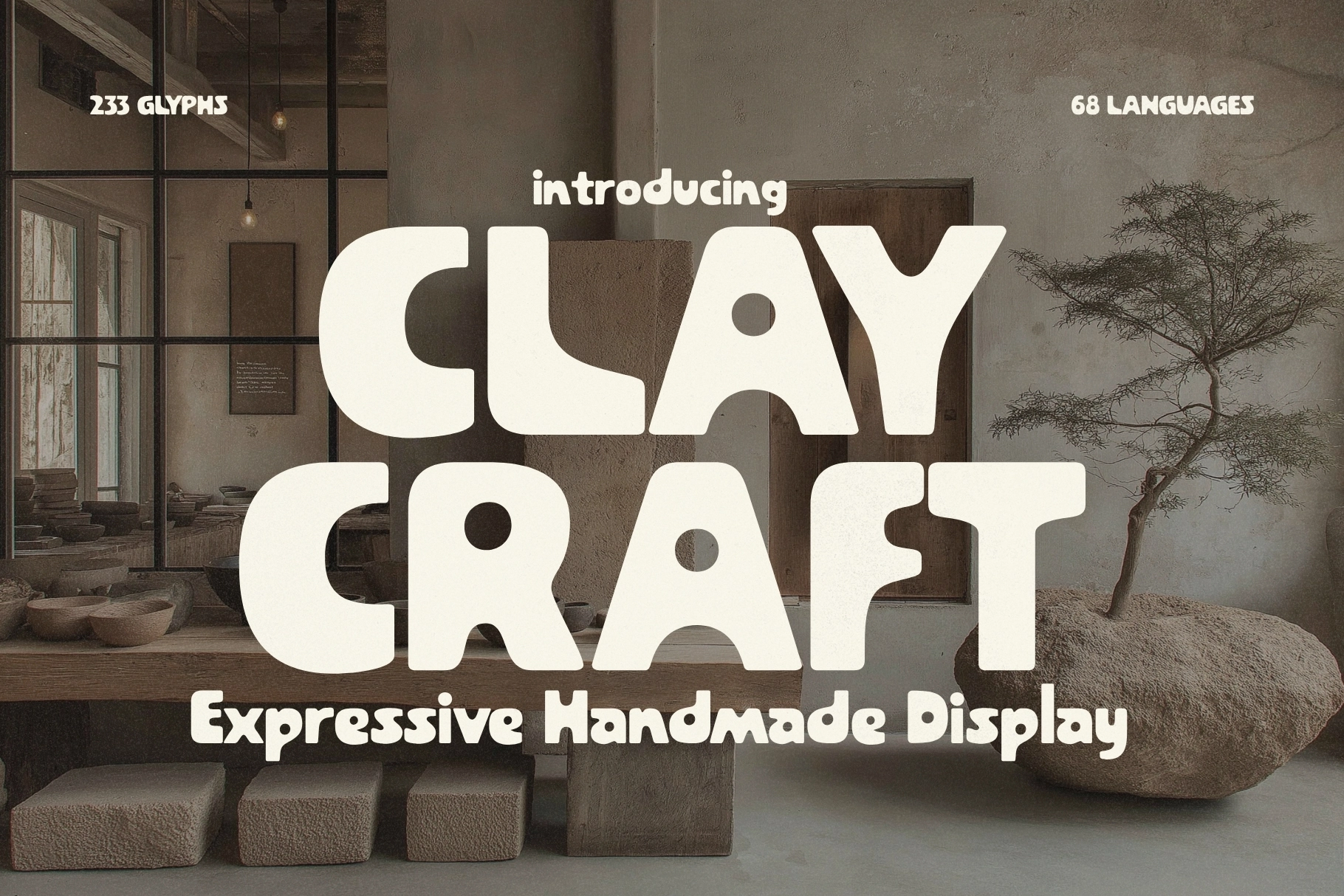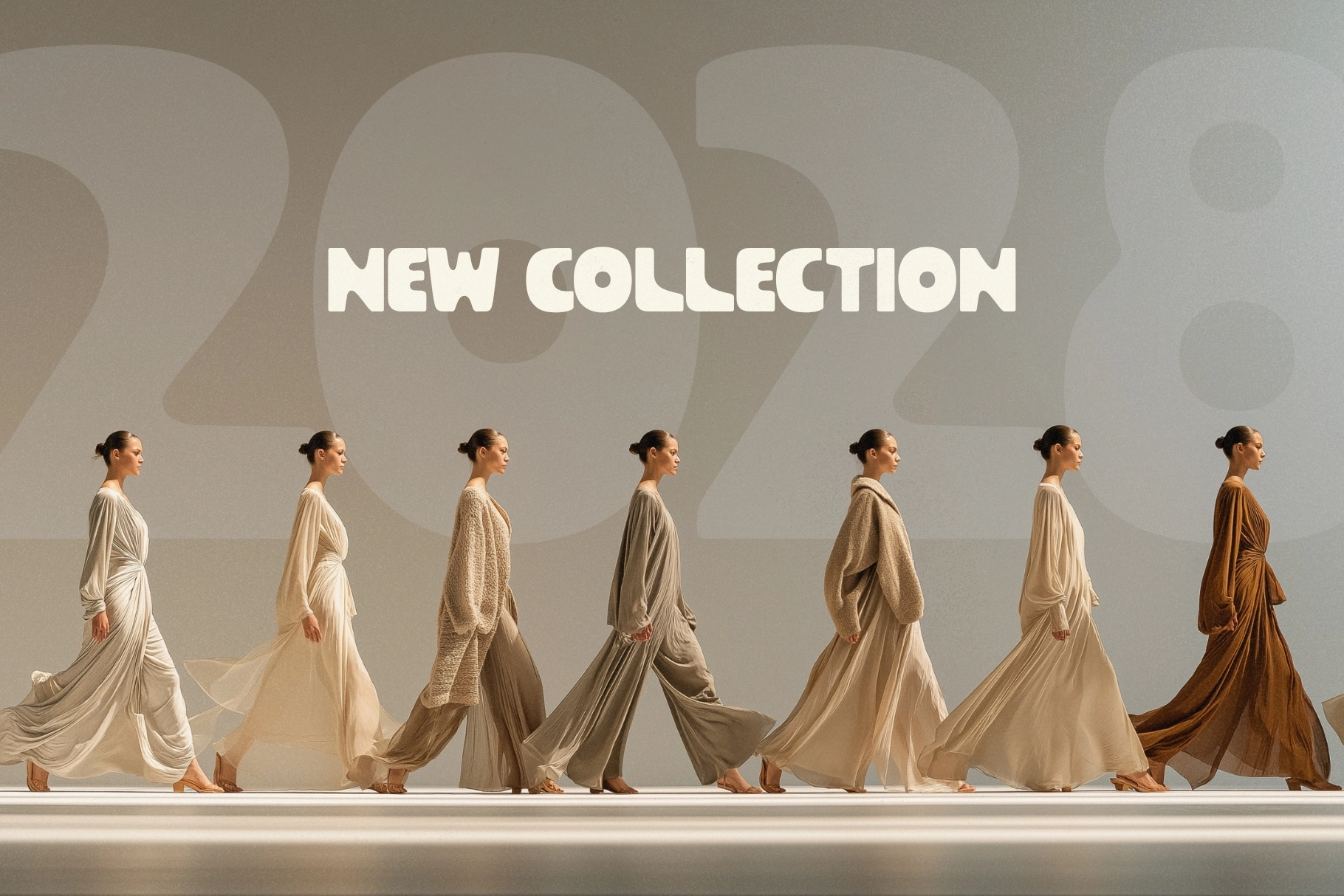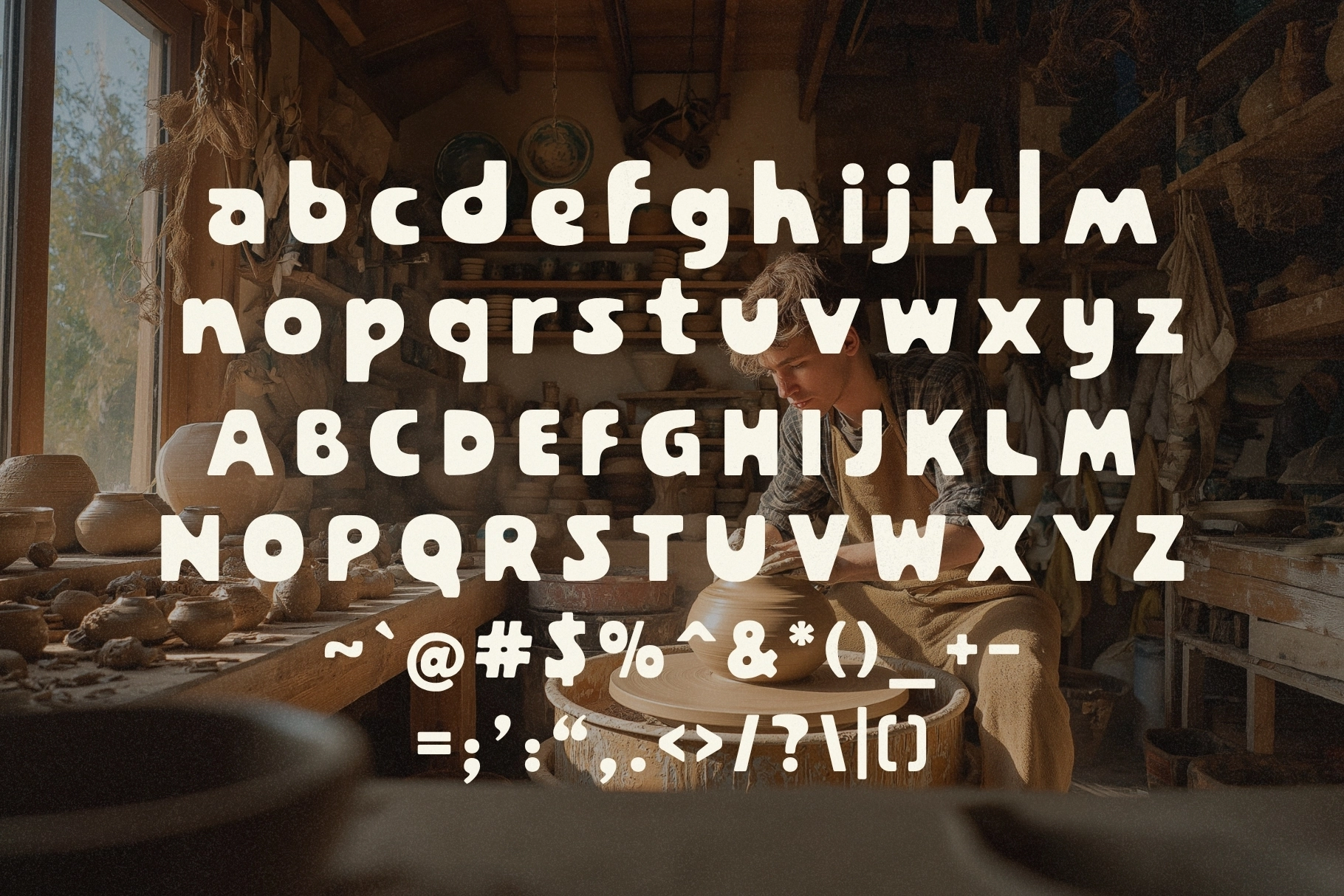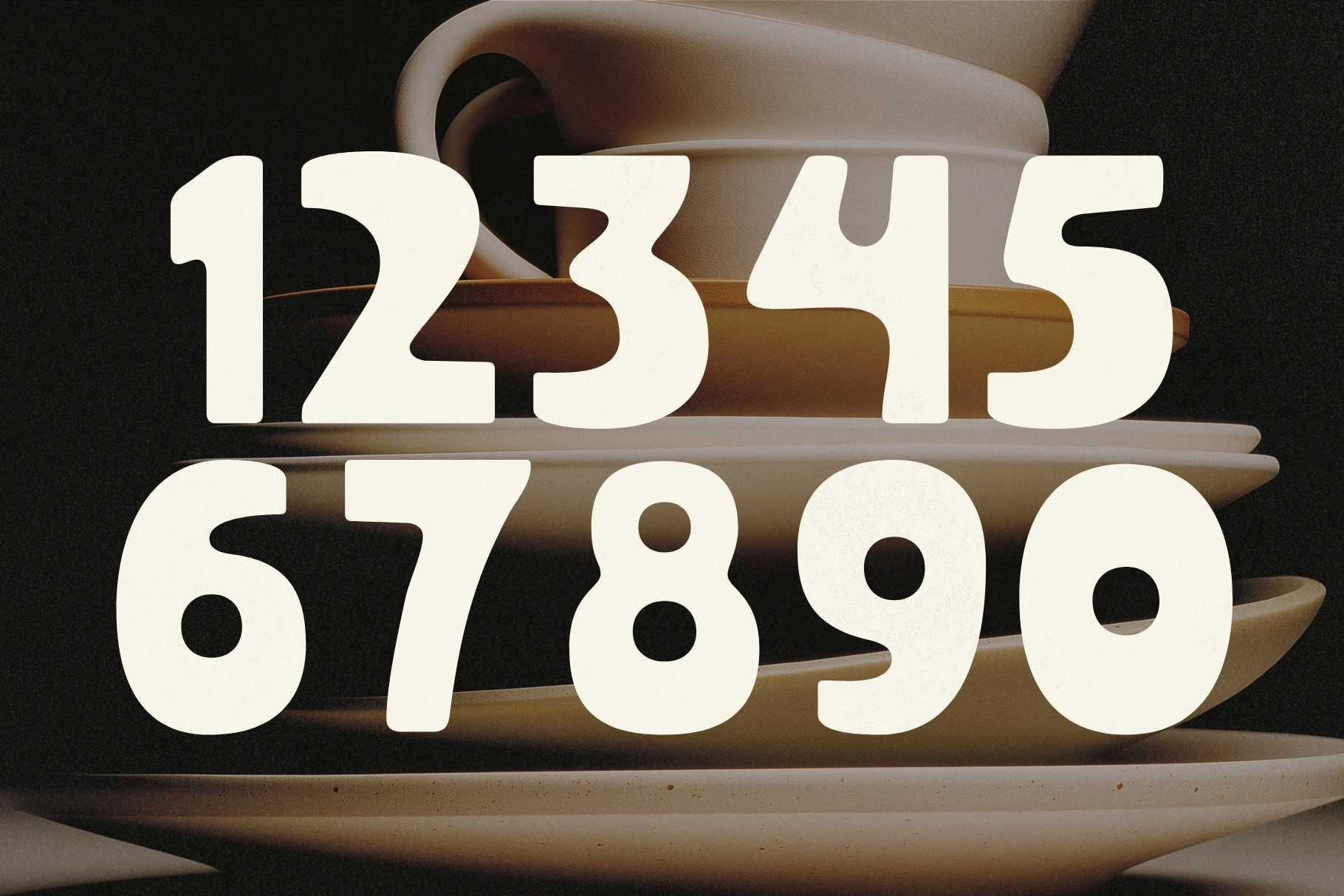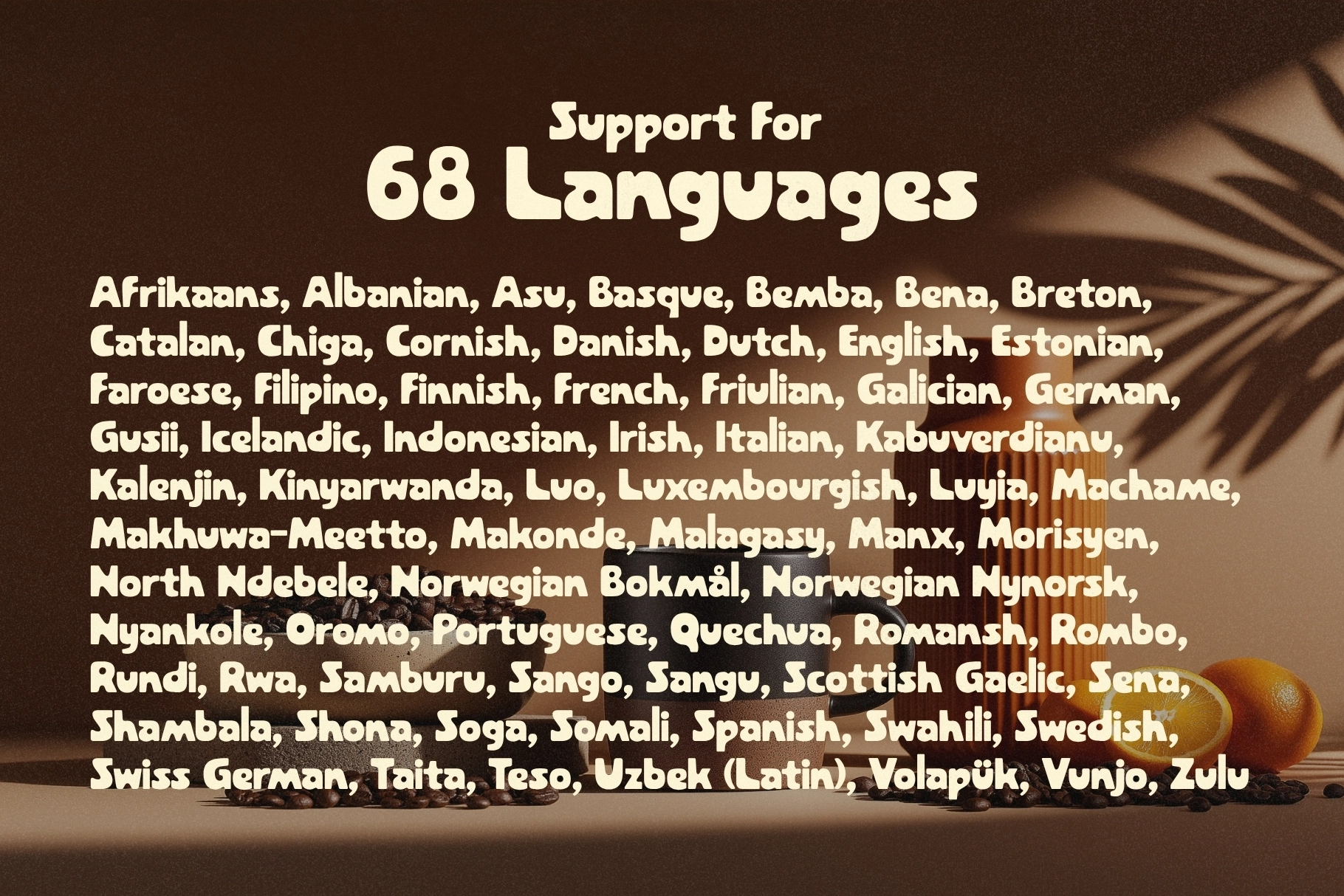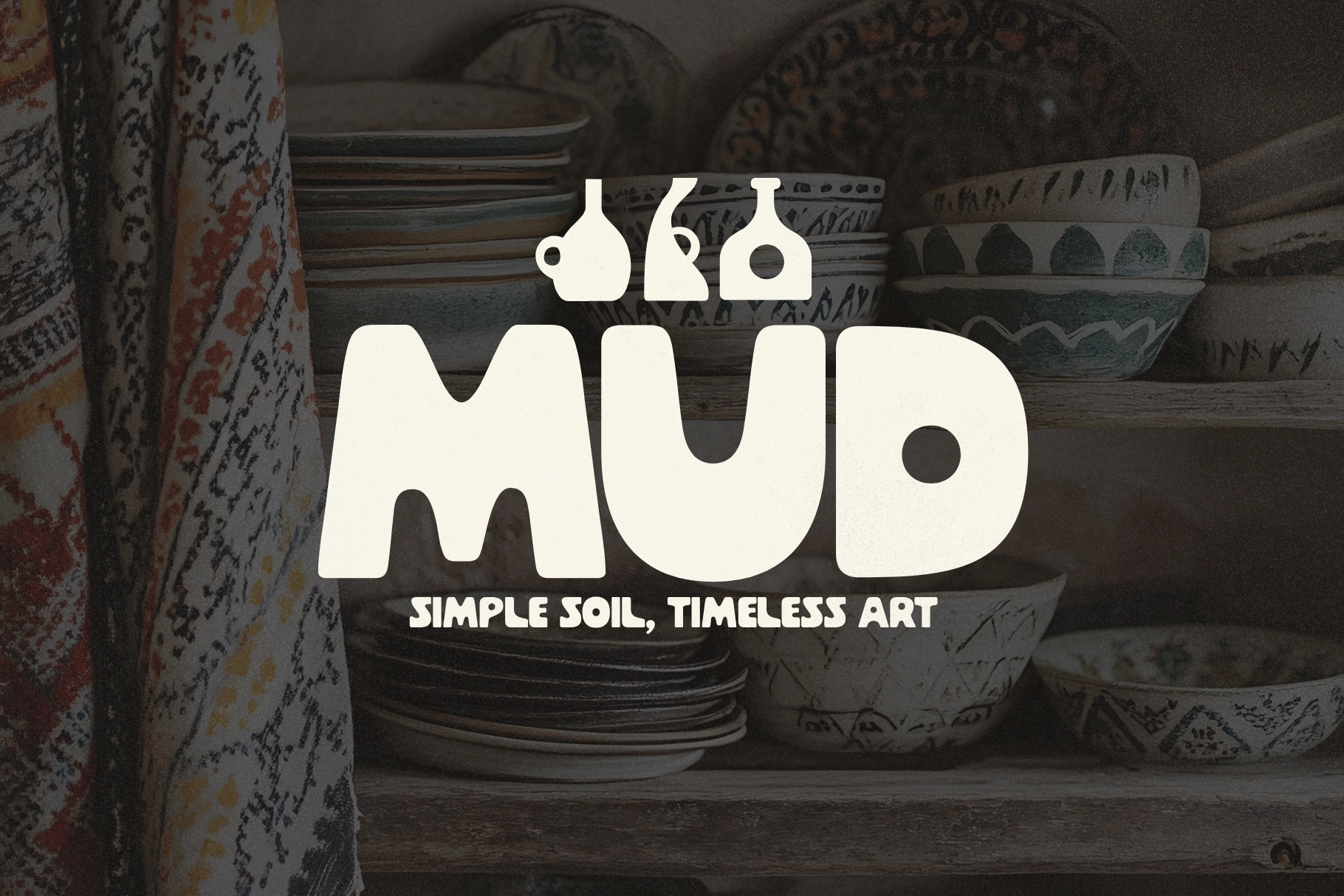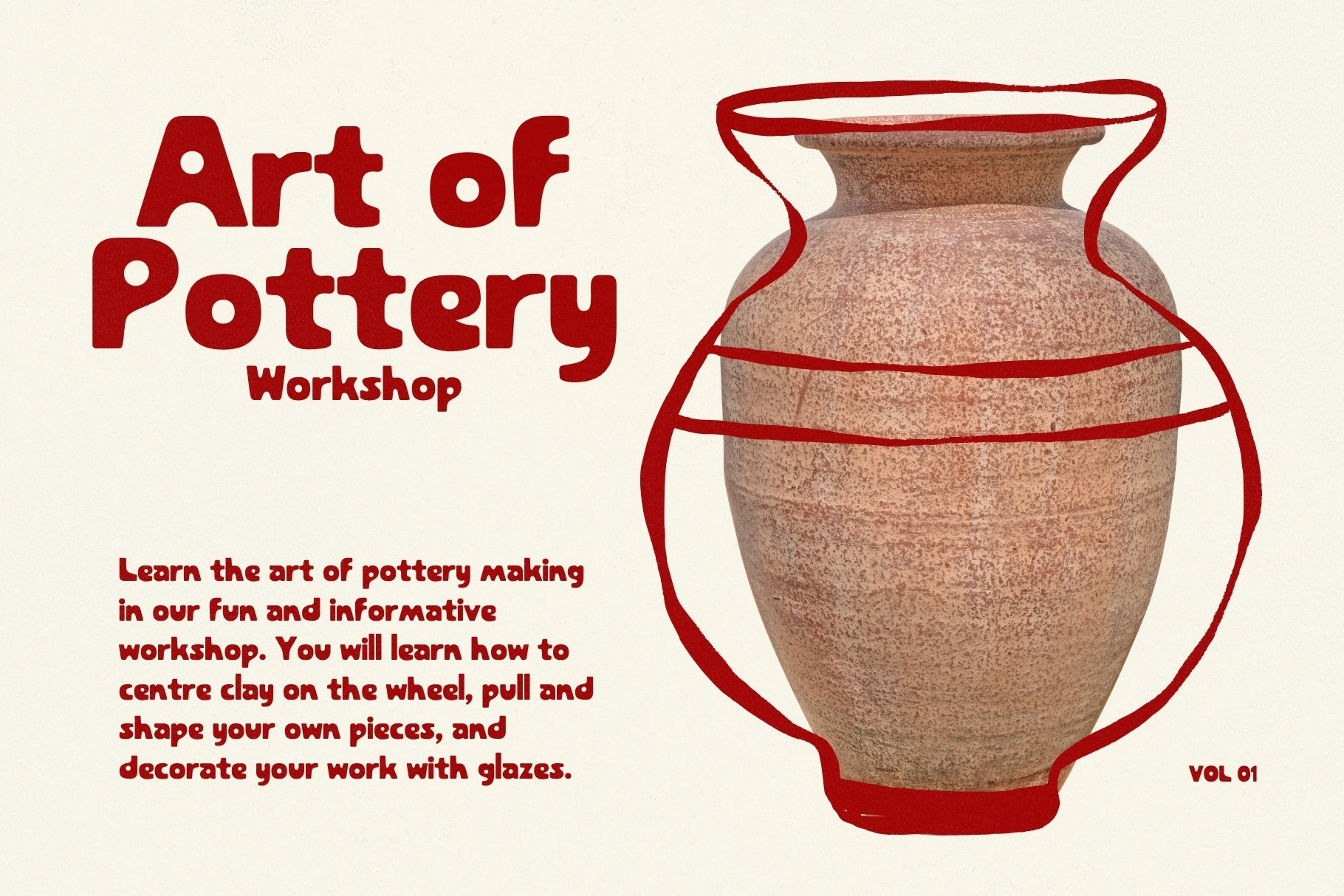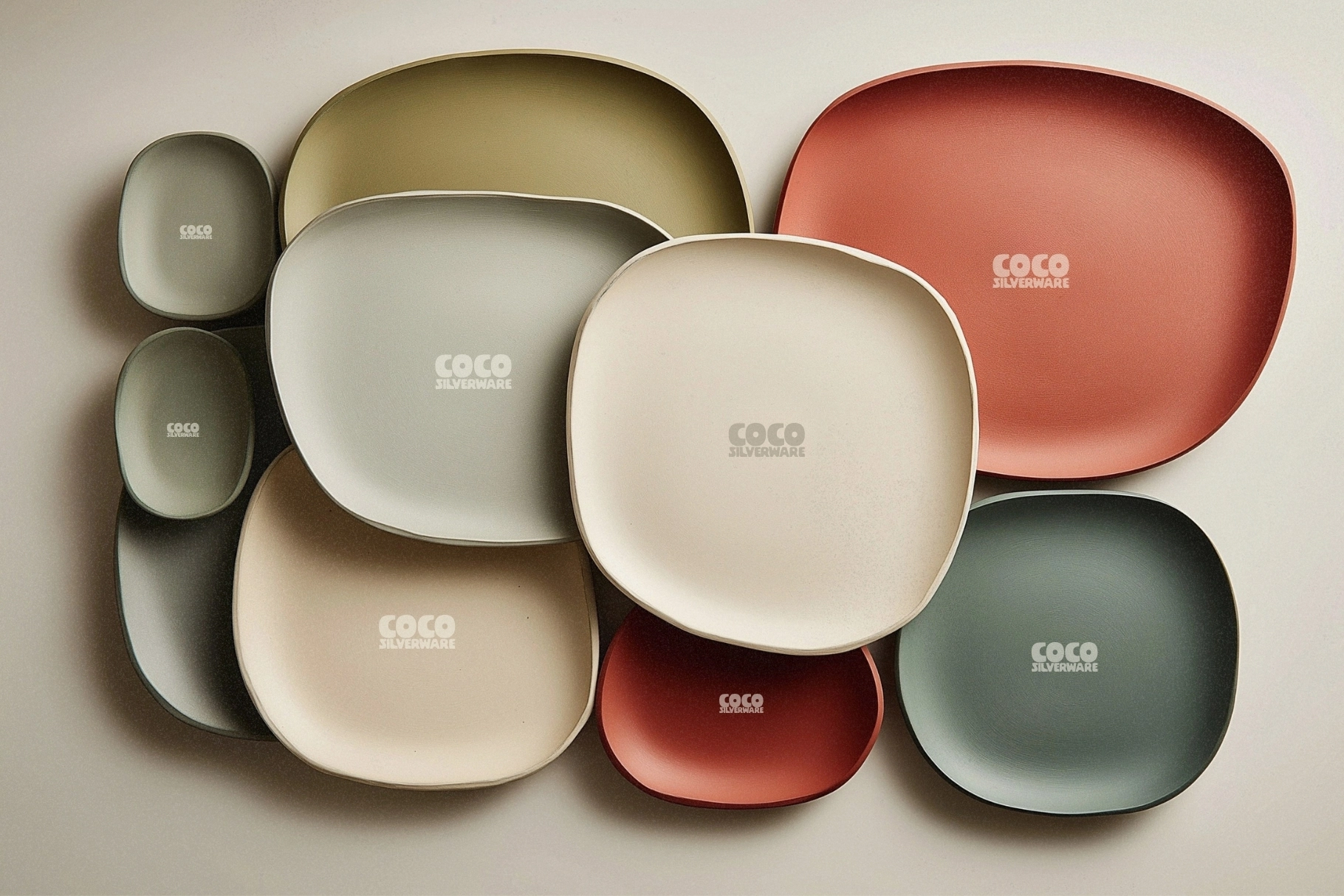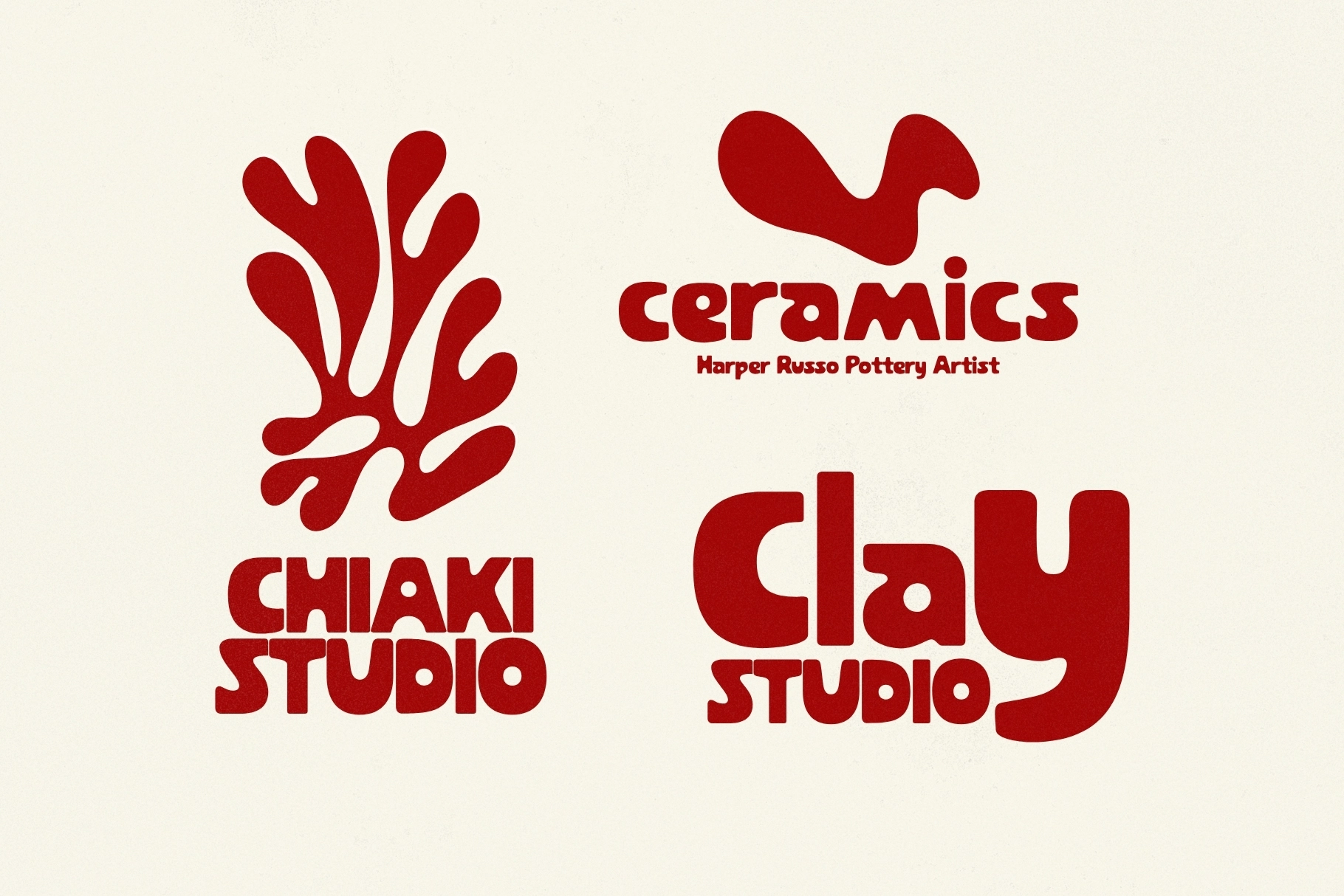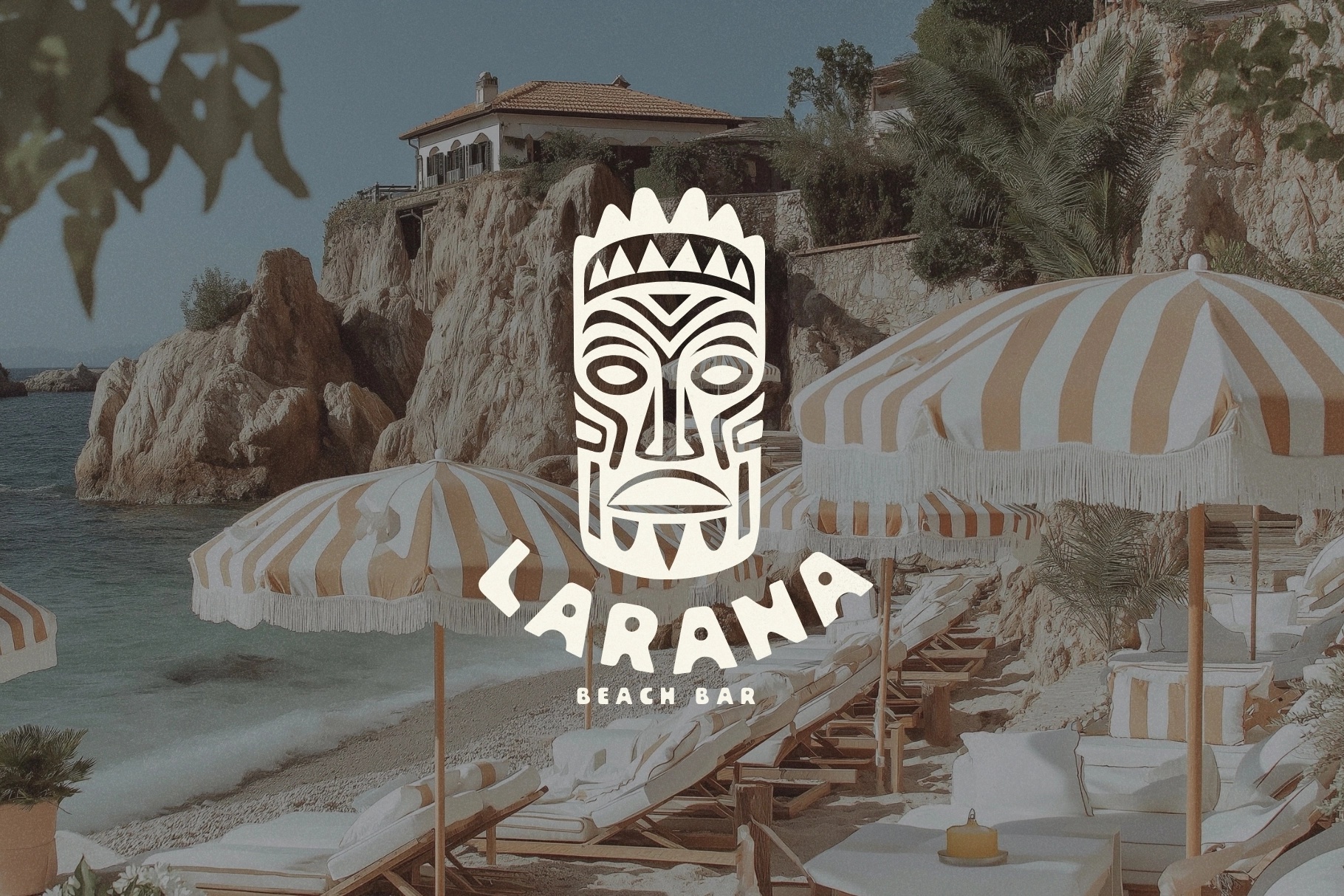
Claycraft - Handmade Display Font
This handmade display font is bold, rounded, and happily uneven, with chunky shapes that look cut, pressed, and softened by hand. Its playful character comes through in the wide curves, irregular counters, and sculpted letterforms, giving logos and headlines a warm studio-made personality.
Claycraft is a strong fit for pottery branding, craft packaging, art workshop posters, café menus, children’s book covers, handmade product labels, market stall signage, album artwork, boutique logos, editorial titles, social media graphics, merch, and more. The letters are expressive without turning messy — a rare win in the “human touch” department.
• 233 glyphs
• Support for 68 languages
• Handmade display character